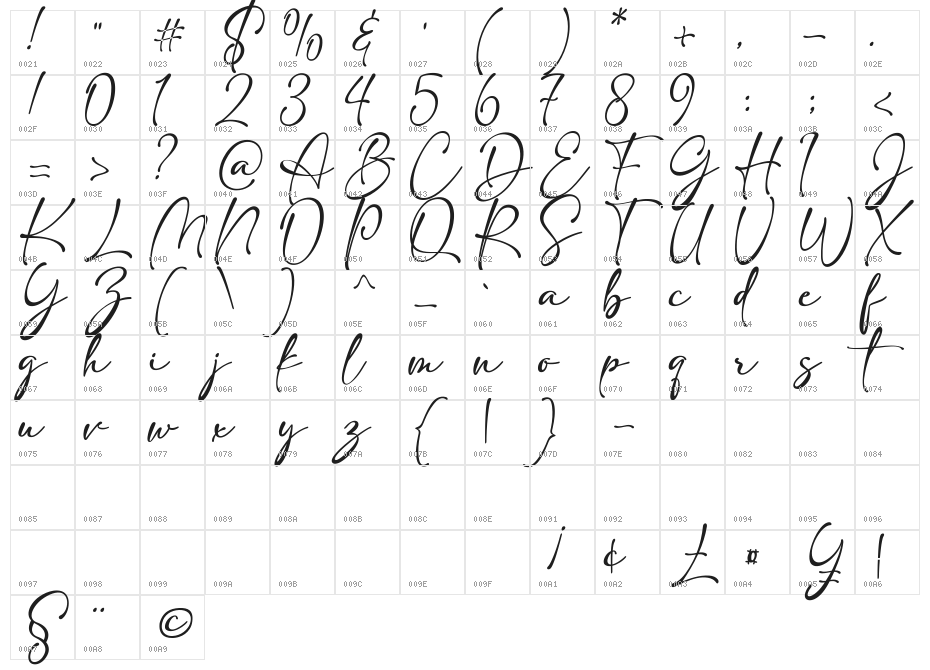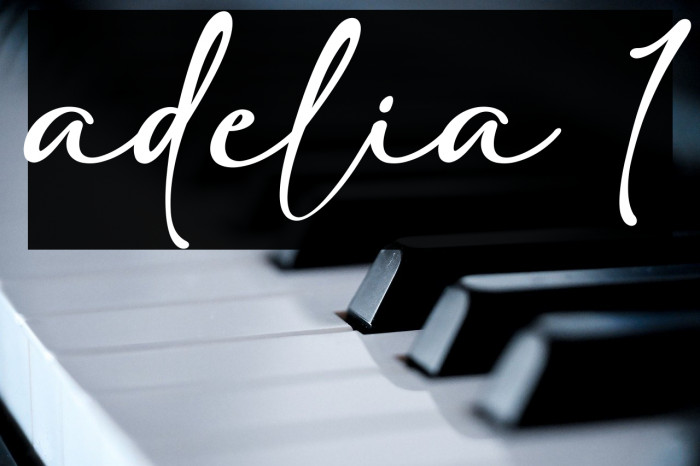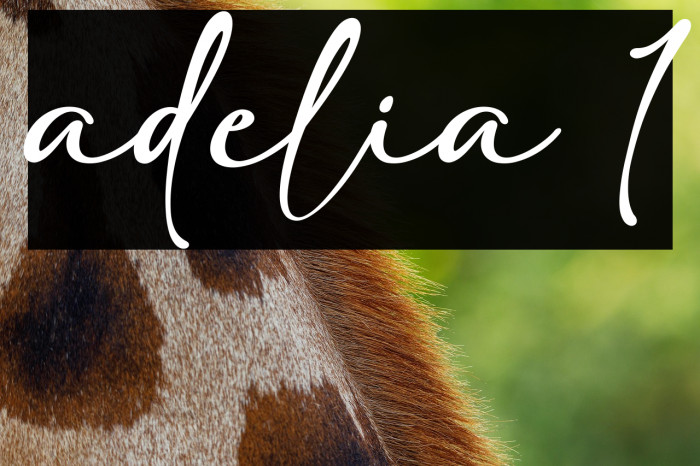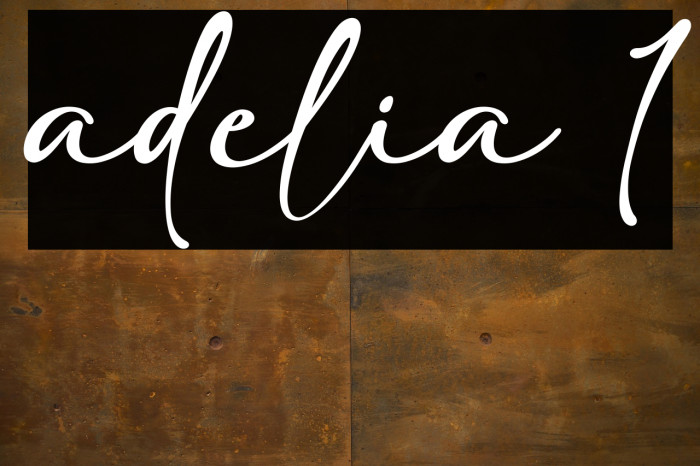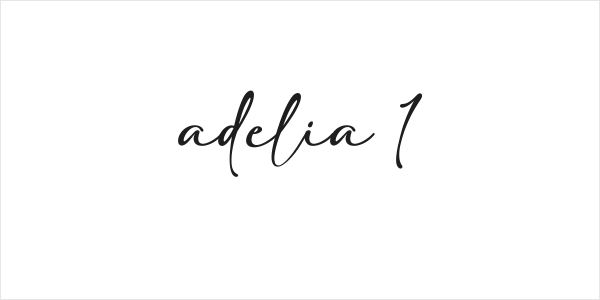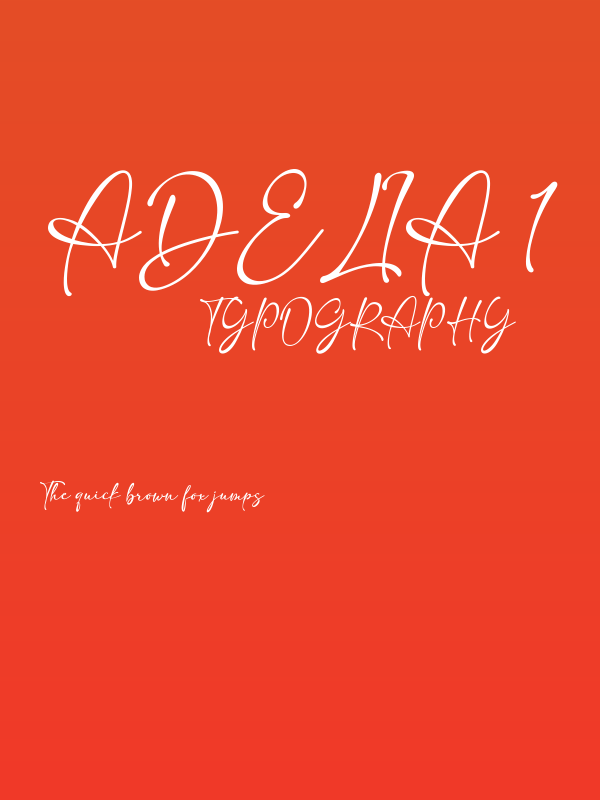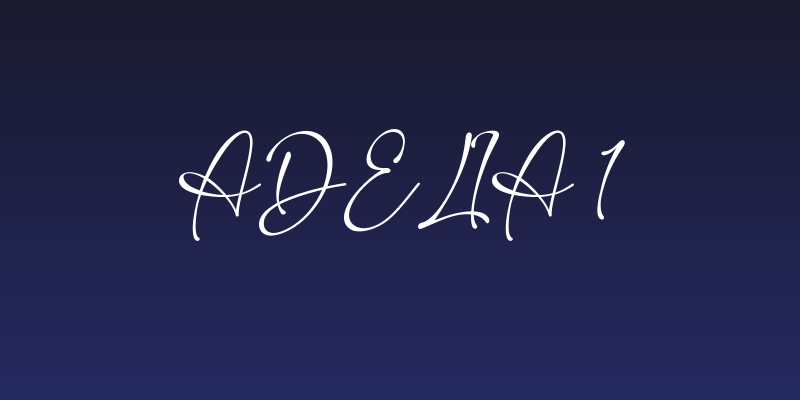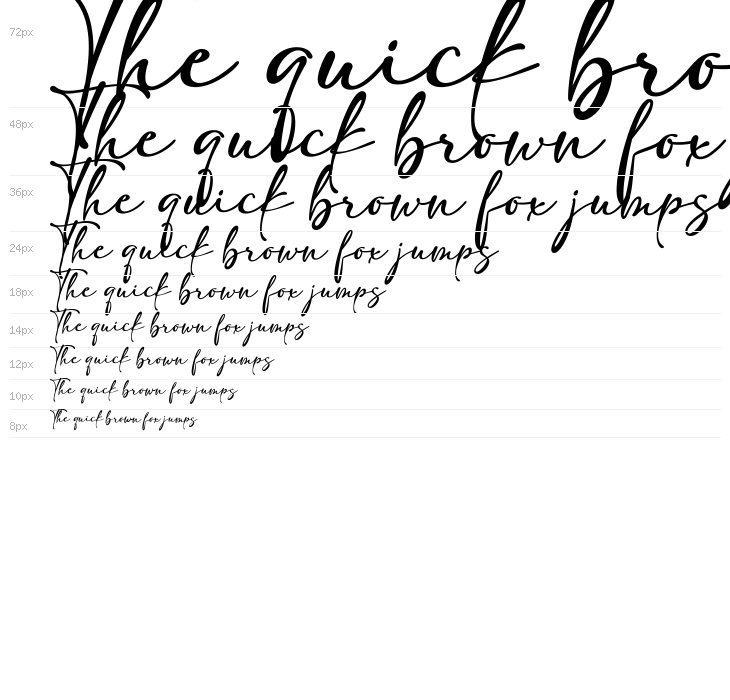
adelia 1 Font
adelia 1 Description
This font features a flowing, cursive style that mimics elegant handwriting. The characters are interconnected with smooth, sweeping lines that give it a graceful and sophisticated appearance. The uppercase letters are slightly more ornate, with flourishes that enhance their decorative quality, while the lowercase letters maintain a consistent fluidity. The numerals are designed to match the script style, maintaining the same elegant curves. Special characters are included, each crafted to blend seamlessly with the overall aesthetic. The font's design is both artistic and legible, making it suitable for a variety of creative applications.
| Overall Style | Elegant, Decorative |